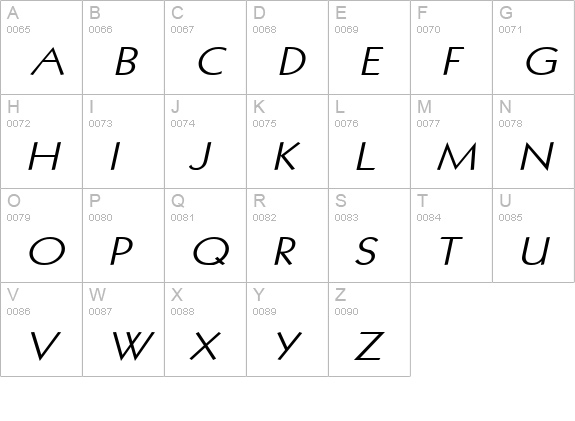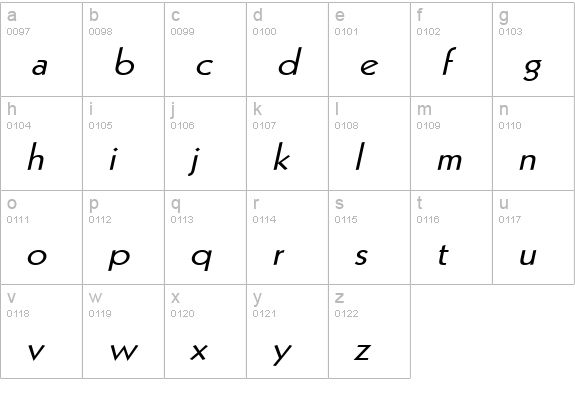
Geo 112 Wide Italic is a distinctive, extended-width, italic variant in the Geo typeface family \xE2\x80\x94 well suited to design and typography projects.
Geo 112 Wide Italic font is a sleek and modern typeface that is perfect for adding a touch of sophistication to your designs. Its wide and italic design gives it a unique and eye-catching appearance, making it stand out from the crowd. Whether you're designing a poster, logo, or website, Geo 112 Wide Italic will bring a touch of elegance to your projects. The best part is that Geo 112 Wide Italic is available for free download at FontsMarket.com. This means you can easily access this stylish font without breaking the bank. So why wait? Add Geo 112 Wide Italic to your font collection today and elevate your designs to the next level.